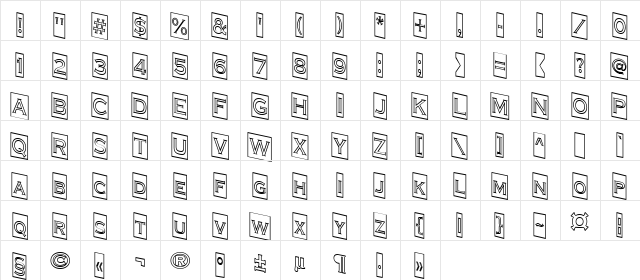
a_CopperGothCmDnOtl Regular
a_CopperGothCmDnOtl is a composed and adaptable typeface that performs quietly and consistently across a wide range of design contexts.